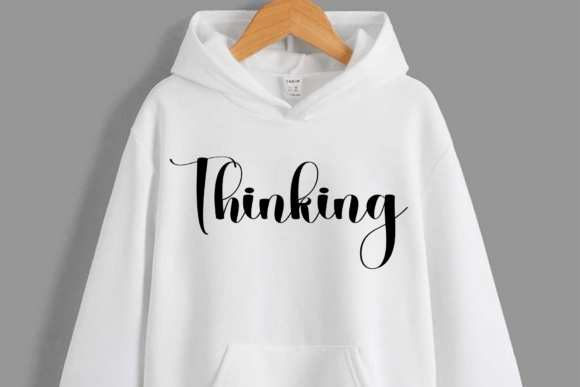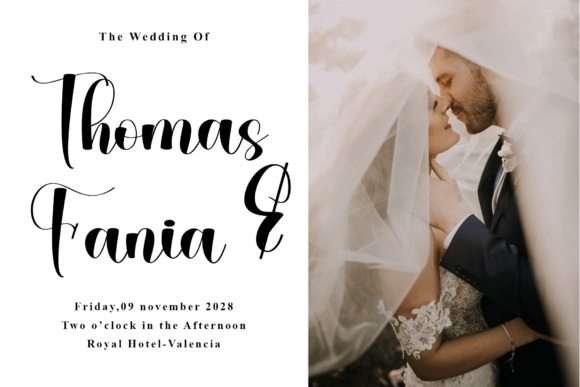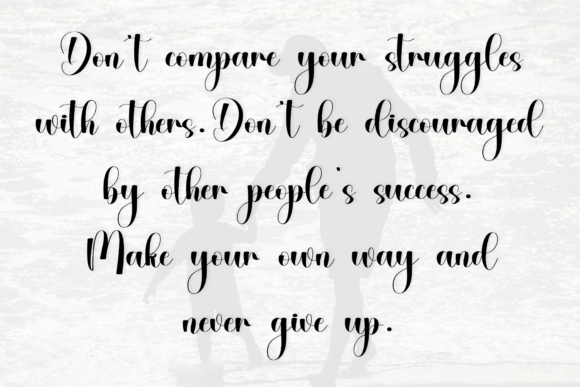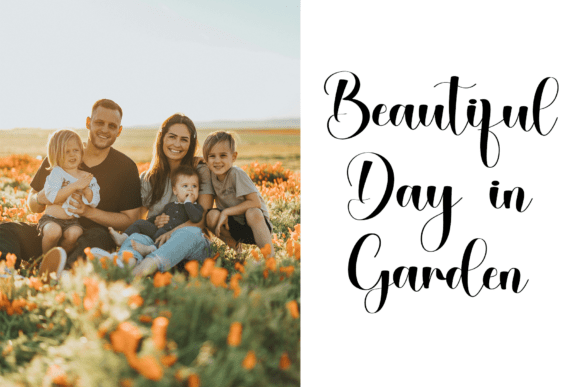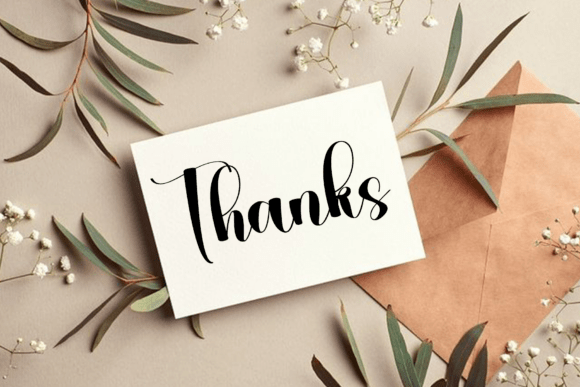
The Quest for the Perfect Font: Discovering Father Font
I still remember the design project that led me to discover Father Font. I was working on a branding project for a new coffee shop, and I was struggling to find the right font to capture their warm and cozy vibe. The client had a very specific idea of what they wanted, but I just couldn’t seem to find a font that fit the bill. That was until I stumbled upon Father Font. With its minimal and neat handwriting style, it was the perfect match for the project. In this article, I’ll share my experience with Father Font, its features, and how to make the most of it in your designs.
An Honest Review of Father Font
- ✨ Minimal and neat handwriting style: Father Font has a unique and elegant handwriting style that’s perfect for a wide range of projects.
- ✅ Highly versatile: This font can easily be matched to an incredibly large set of projects, from branding and packaging to web design and social media.
- 💡 Easy to read: Despite its minimalist style, Father Font is surprisingly easy to read, even at small sizes.
While Father Font is an excellent choice for many projects, there are a few things to keep in mind:
- 🤔 Limited character set: While Father Font has a wide range of characters, it may not have every special character or glyph you need.
- ⚠️ Not suitable for body text: Due to its minimalist style, Father Font may not be the best choice for large blocks of body text.
The Story Behind Father Font
While the origins of Father Font are shrouded in mystery, it’s clear that the designer had a passion for minimalism and elegance. The font’s clean lines and simple shapes make it perfect for a wide range of projects, from modern branding to traditional print design.
Q: What type of projects is Father Font best suited for?
A: Father Font is highly versatile and can be used for a wide range of projects, including branding, packaging, web design, and social media.
Q: Is Father Font easy to read?
A: Yes, despite its minimalist style, Father Font is surprisingly easy to read, even at small sizes.
Q: Can I use Father Font with OpenType features?
A: Yes, Father Font supports OpenType features like ligatures and stylistic alternates, making it perfect for creative projects.